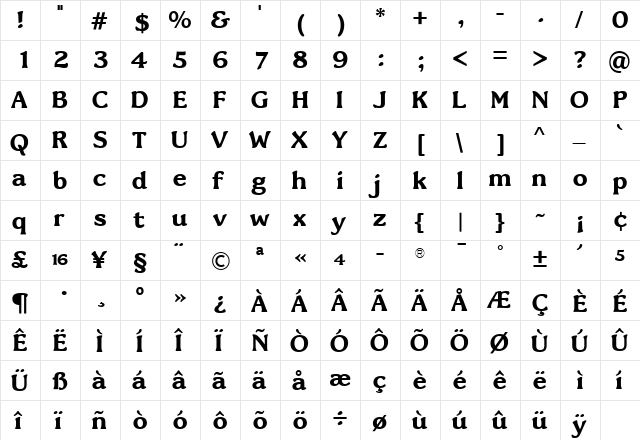
TFBrynMawr Bold
| Year | 1980 |
Design Context for TFBrynMawr Typeface
TFBrynMawr is a composed and adaptable typeface that performs quietly and consistently across a wide range of design contexts. Its bold stroke weight gives it real presence on the page.